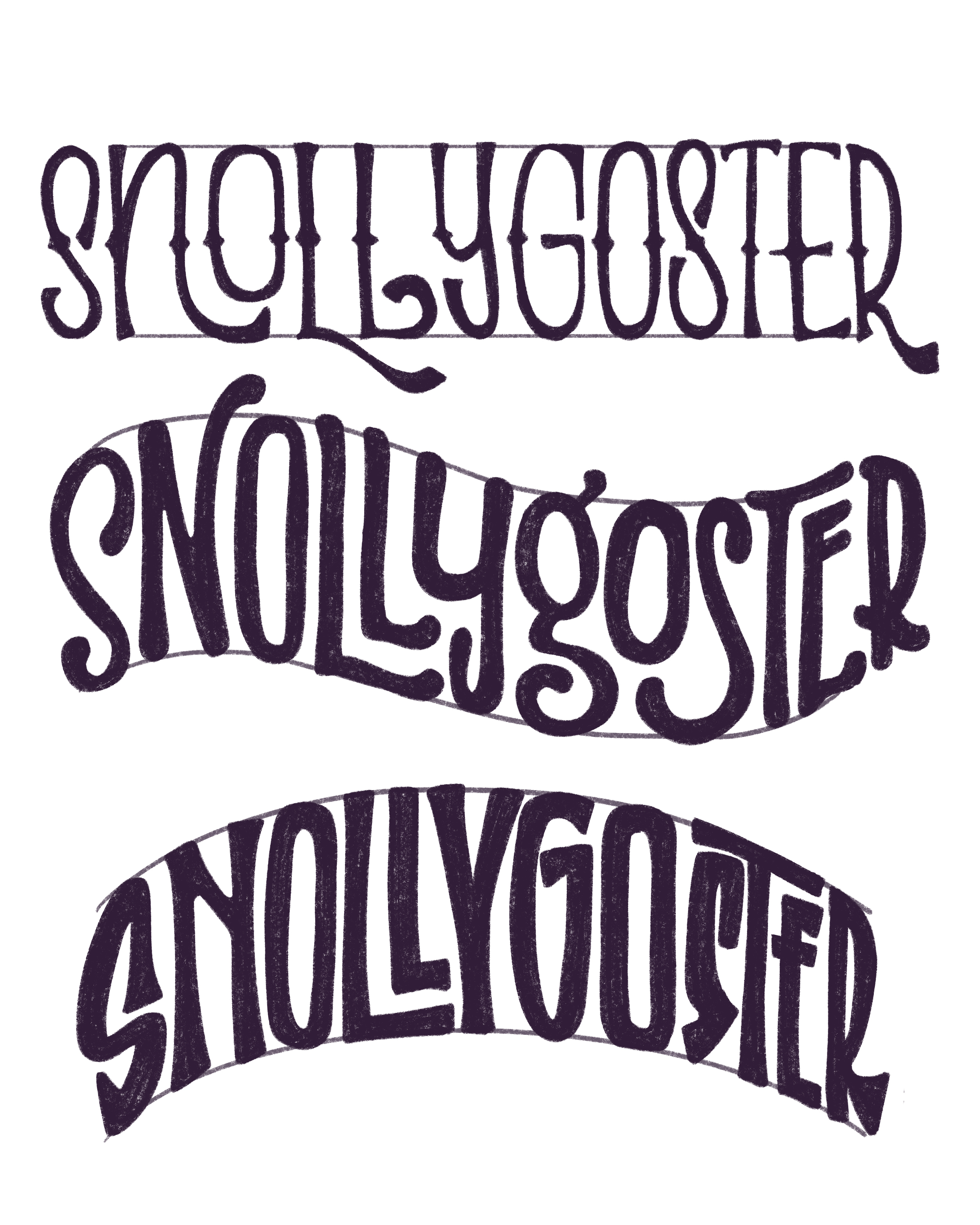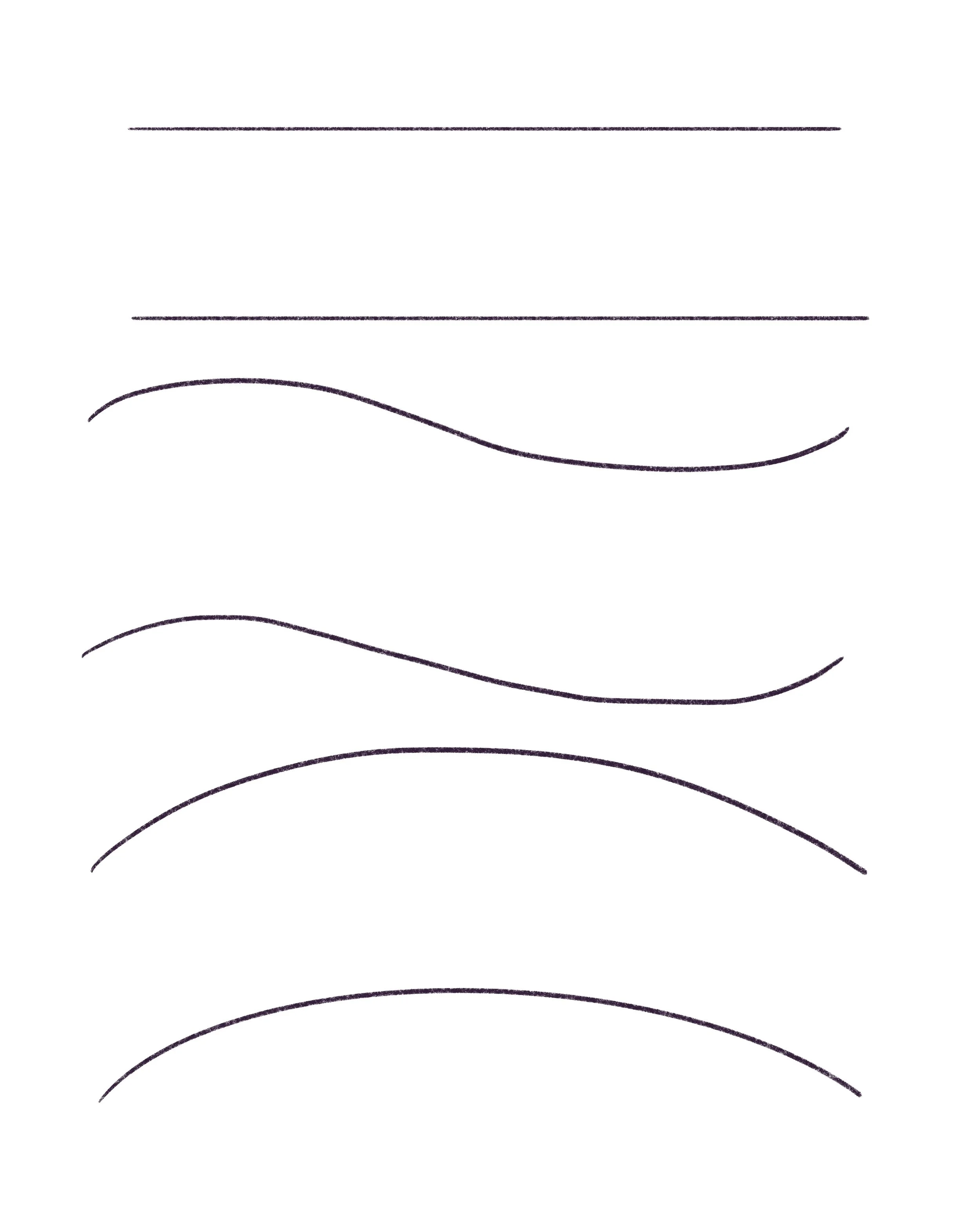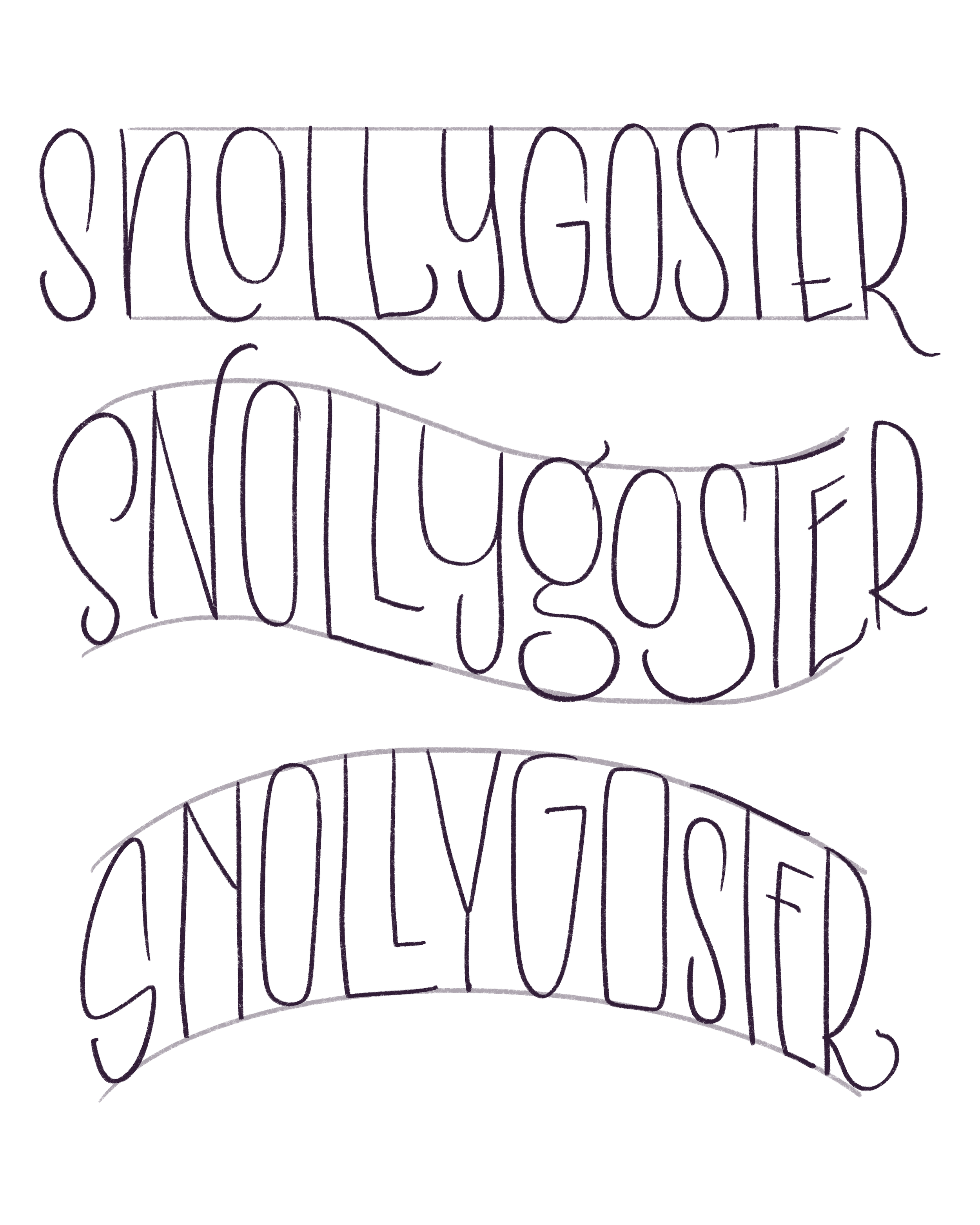
I’m starting a new series this week, and I hope you’ll join me: Letter With Me — a weekly practice where we explore one word from the lettering list I shared last week).
Each week we’ll take one word and sketch it out in a few different lettering styles. Nothing polished, nothing final. I’m using my iPad/Apple Pencil since it’s easier for me to record my process that way. But feel free to use the same, a pencil/pen with paper, whatever you have on hand. It’s all about building that creative muscle, trying new things, and building a library of lettering styles you can pull from later for full compositions.
This Week’s Word: Snollygoster
Yep. We’re starting off strong with a long and weird, but fun word. Because it’s so long, it’s a challenge to fit it into a confined space. I should maybe have started off with something easier. Oh well, we can revisit this word at the very end and see how much we’ve improved! (If I remember …)
And just in case you were curious, snollygoster (n.): a shrewd, unprincipled person, especially a politician.
Something to keep in mind as we go through this challenge, we are not worrying about perfecting yet. This is all about exploration and getting ideas out of your head and onto the page.
Step 1: Play with Shapes
I’m going to play with three simple shapes this week: Straight, wavy and arc-shaped.
These are starting points, not rules! Let them guide your thinking as you explore how to fit this long word into different shapes. You don’t have to follow them exactly. In fact, I had a hard time fitting all of snollygoster into any the space I had allotted without some serious stretching, stacking, or shrinking… and that’s okay!
Let your brain and hand play.
Step 2: Monoline It
Once you’ve chosen and sketched out your shapes, try writing the word inside it normally without overthinking. Play with the crossbars and the tails of letters. Try stacking letters and switching between upper and lower case letters. There is no pressure for perfect form here, just seeing how the letters might fit. Pretend your playing Tetris, but with letters!
I tried a few things:
Making the letters thinner
Stacking them when they didn’t fit horizontally
Being mindful not to squeeze so tightly that the word becomes unreadable
There’s no right or wrong here. Experiment, stretch, smoosh, stack. Try, erase, and try again.
Step 3: Add Style & Flair
Once your letters are in place, it’s time to explore styles a bit more!
I took each of the three sketches and gave them different vibes:
First version: a serif-inspired look with added diamonds and thicker ends (like little triangles!).
Second version: thinner bubble letters with rounded edges.
Third version: a more freestyle approach, where I played with funkier letterforms. The "S" was inspired by graffiti I saw on a train once!
Let your surroundings inspire you. Once you start looking for lettering everywhere, you’ll find it: store signs, menus, graffiti, packaging, old buildings, funky fonts. The more you notice, the more they’ll stick in your minds for you to pull out later. Or you can take photos. Build a little inspiration folder on your phone that you can look at when you’re feeling uninspired. But of course, remember: don’t copy directly. Instead, learn by observing and trying to recreate things from memory. That’s how you start developing your own style because you’ll find you’ve tweaked things differently from the original and that’s where your personality and style comes out.
Et Voilà
You just created three different versions of one word.
If you have extra time in your practice session, go ahead and try even more shapes and styles. Each sketch adds to your mental style bank, and later, when you’re working on full compositions, you’ll have so many ideas to draw from.
You're not just practicing lettering. You’re building your muscle memory and your visual vocabulary.
Let’s Practice Together
So grab your tools and your favorite drink, and let’s letter snollygoster together.